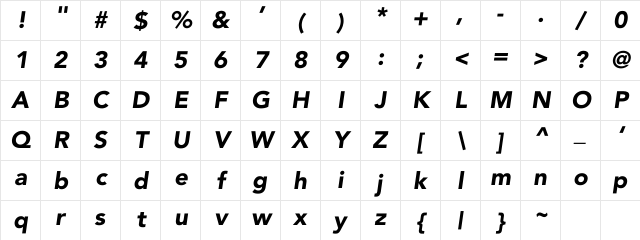
AvonairBlackOblique Regular
Design Context for AvonairBlackOblique
AvonairBlackOblique is a composed and adaptable typeface that performs quietly and consistently across a wide range of design contexts. The slanted form adds forward momentum and visual energy.